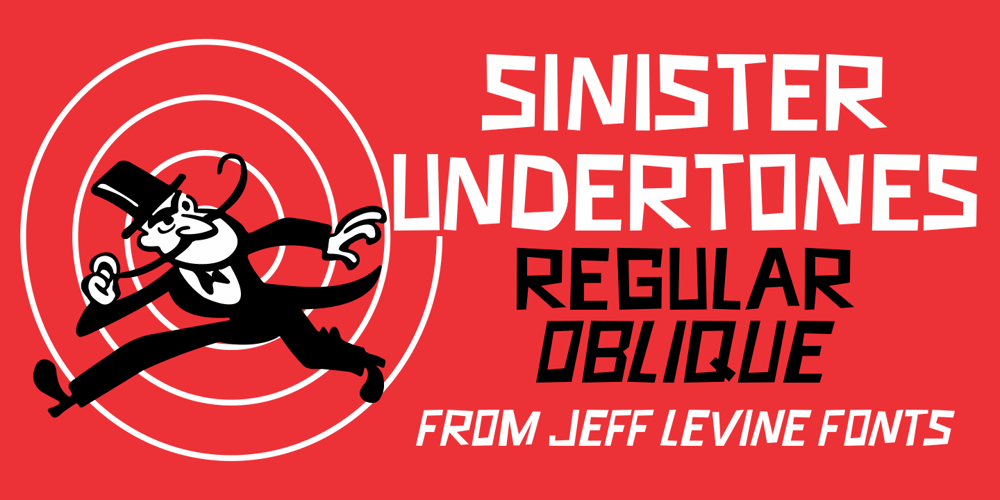
Sinister Undertones JNL Font Family was designed by Jeff Levine and published by Jeff Levine. Sinister Undertones JNL contains 2 styles and family package options. Hand lettering from the 1958 movie poster for “Vertigo” (designed by Saul Bass) was the inspiration for the digital font Sinister Undertones JNL, which is available in both regular and oblique versions.The quirkiness of this irregular, squared-edge sans – despite its simplicity – perfectly captured the mood and drama of Alfred Hitchcock’s film production.